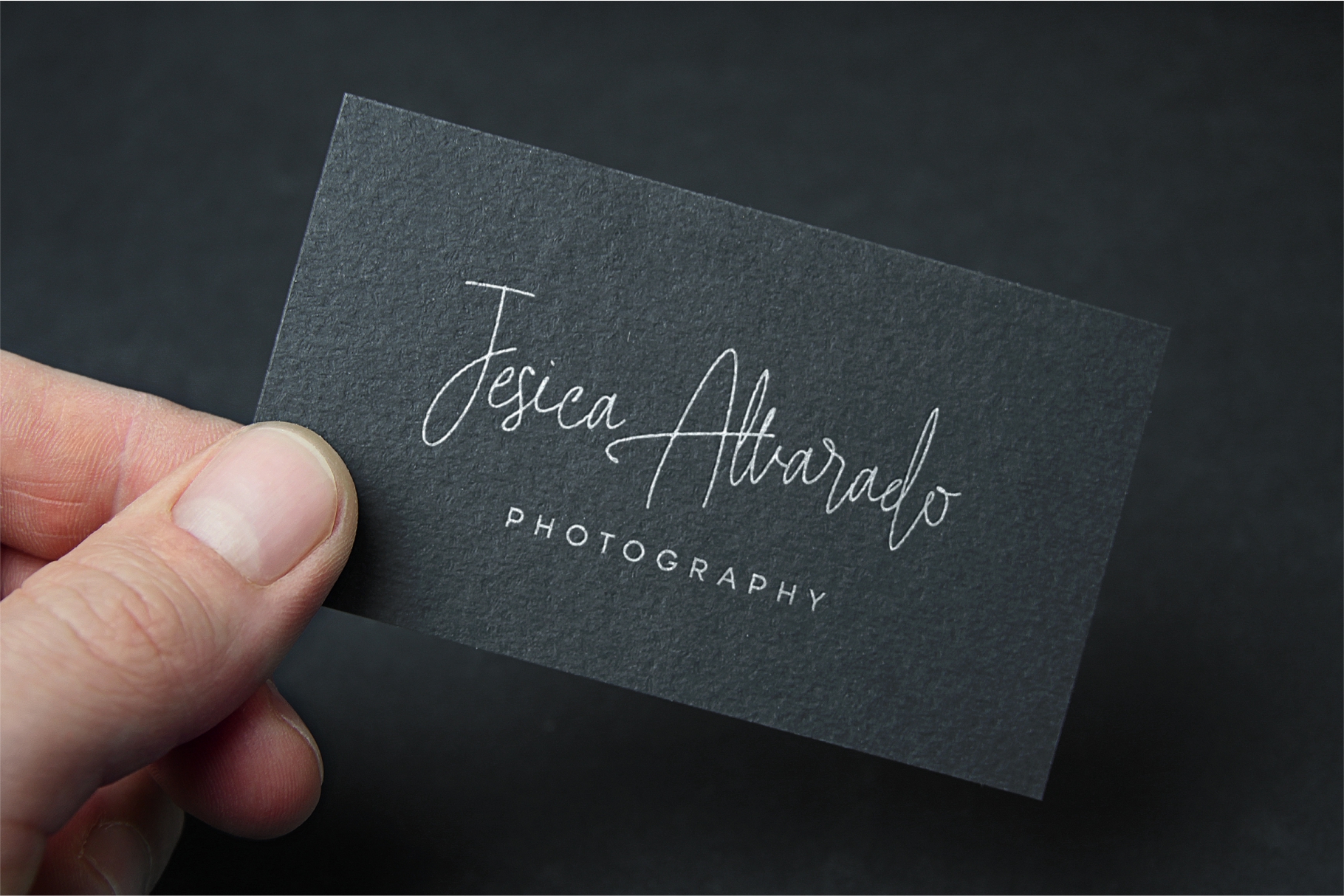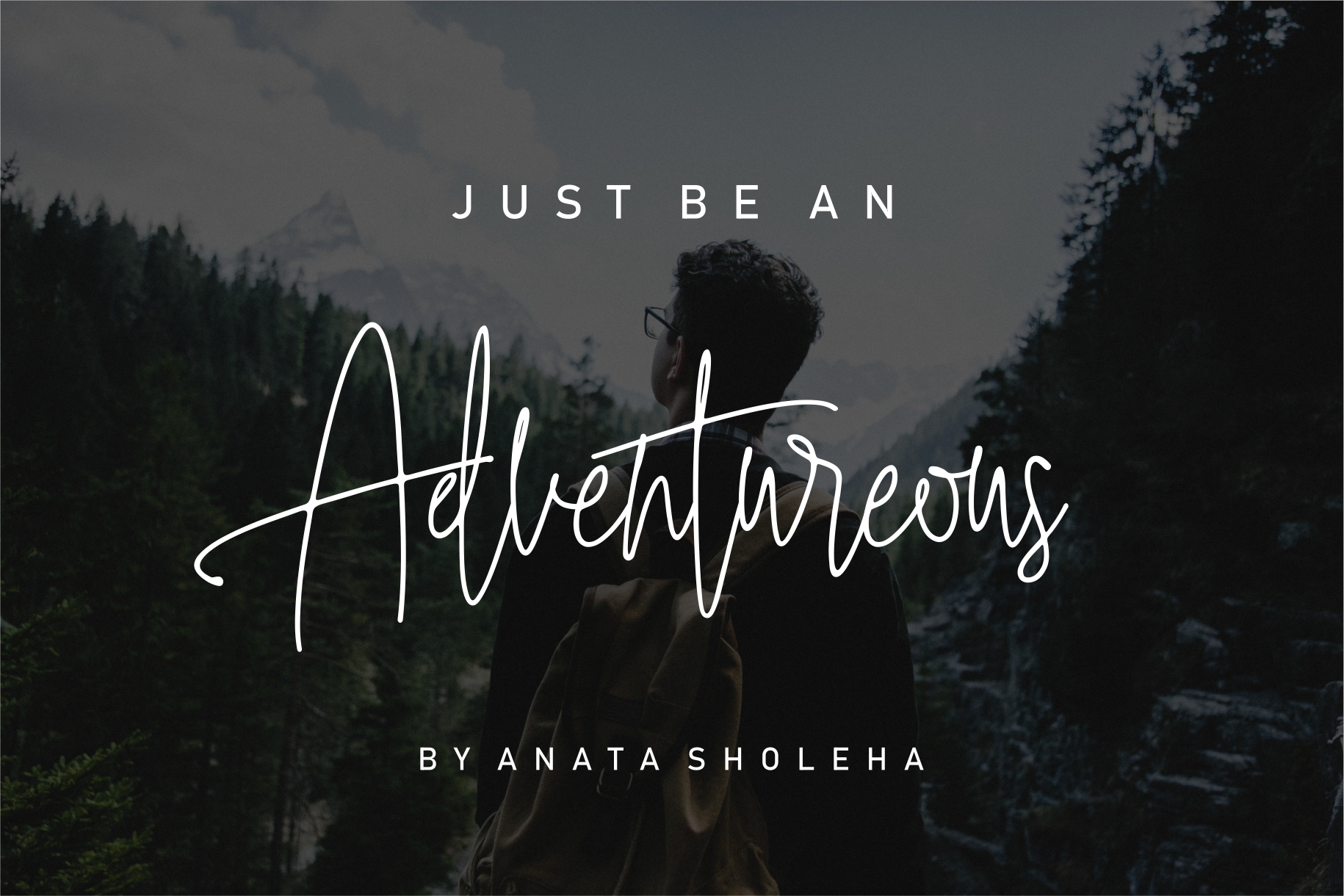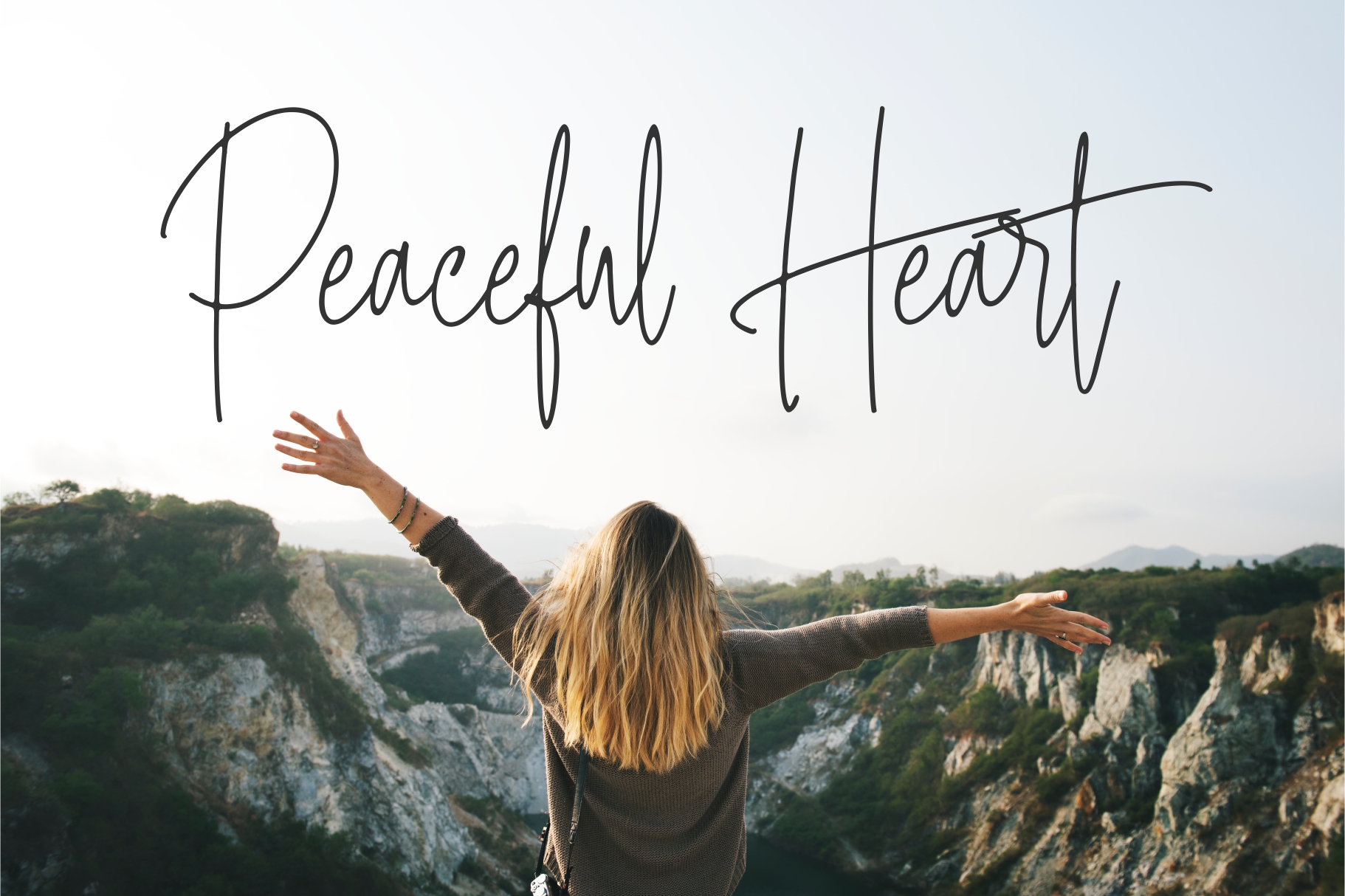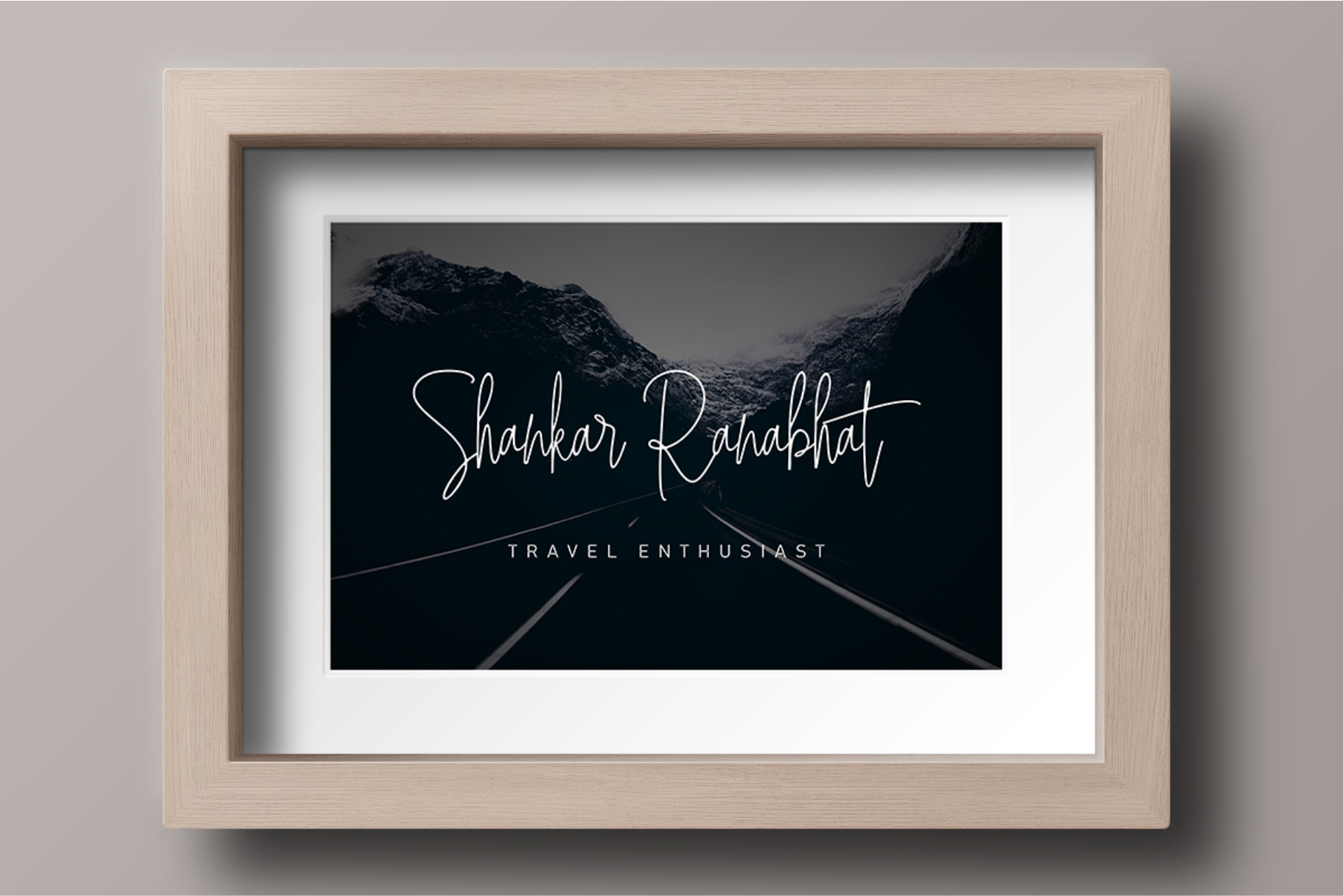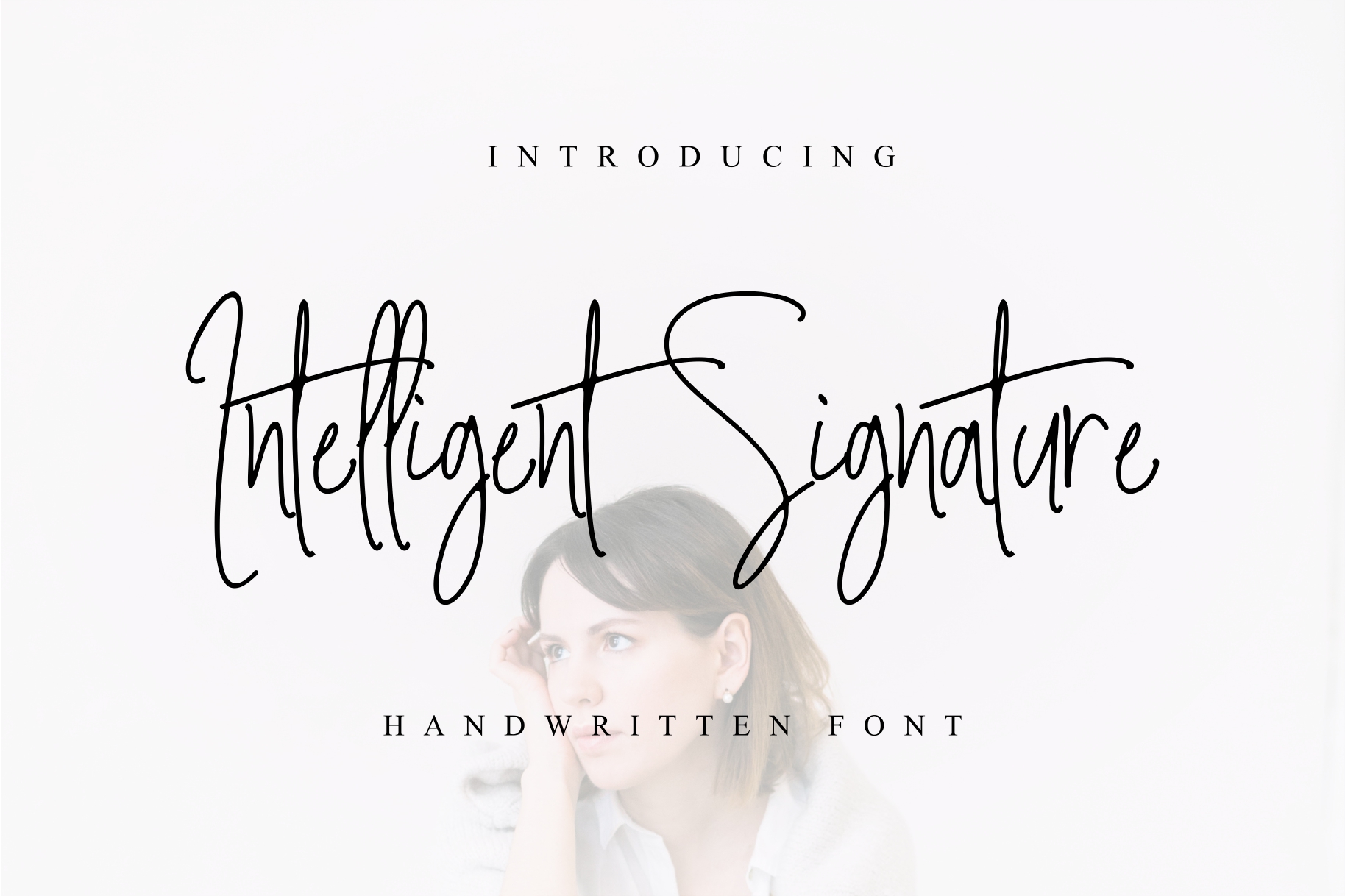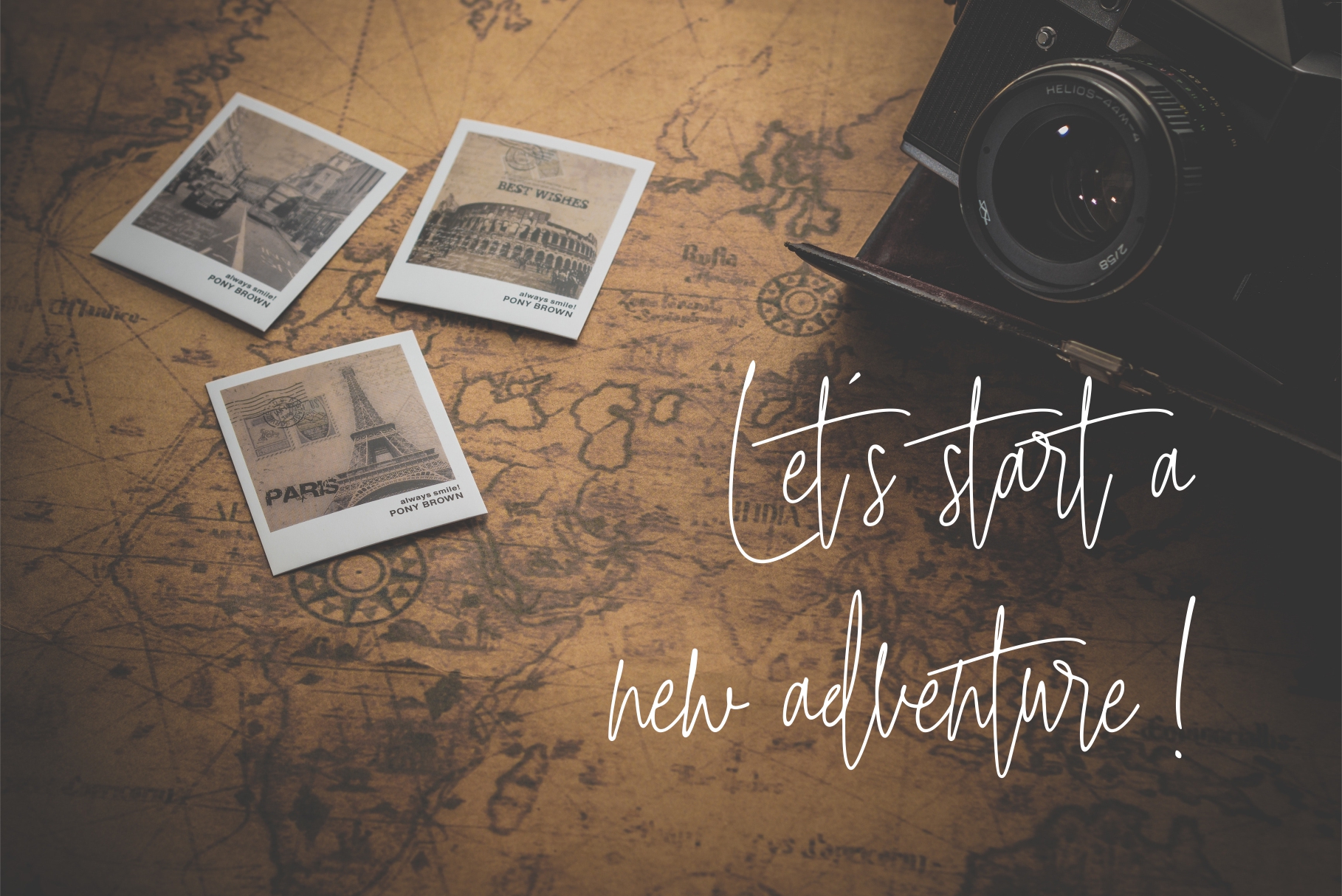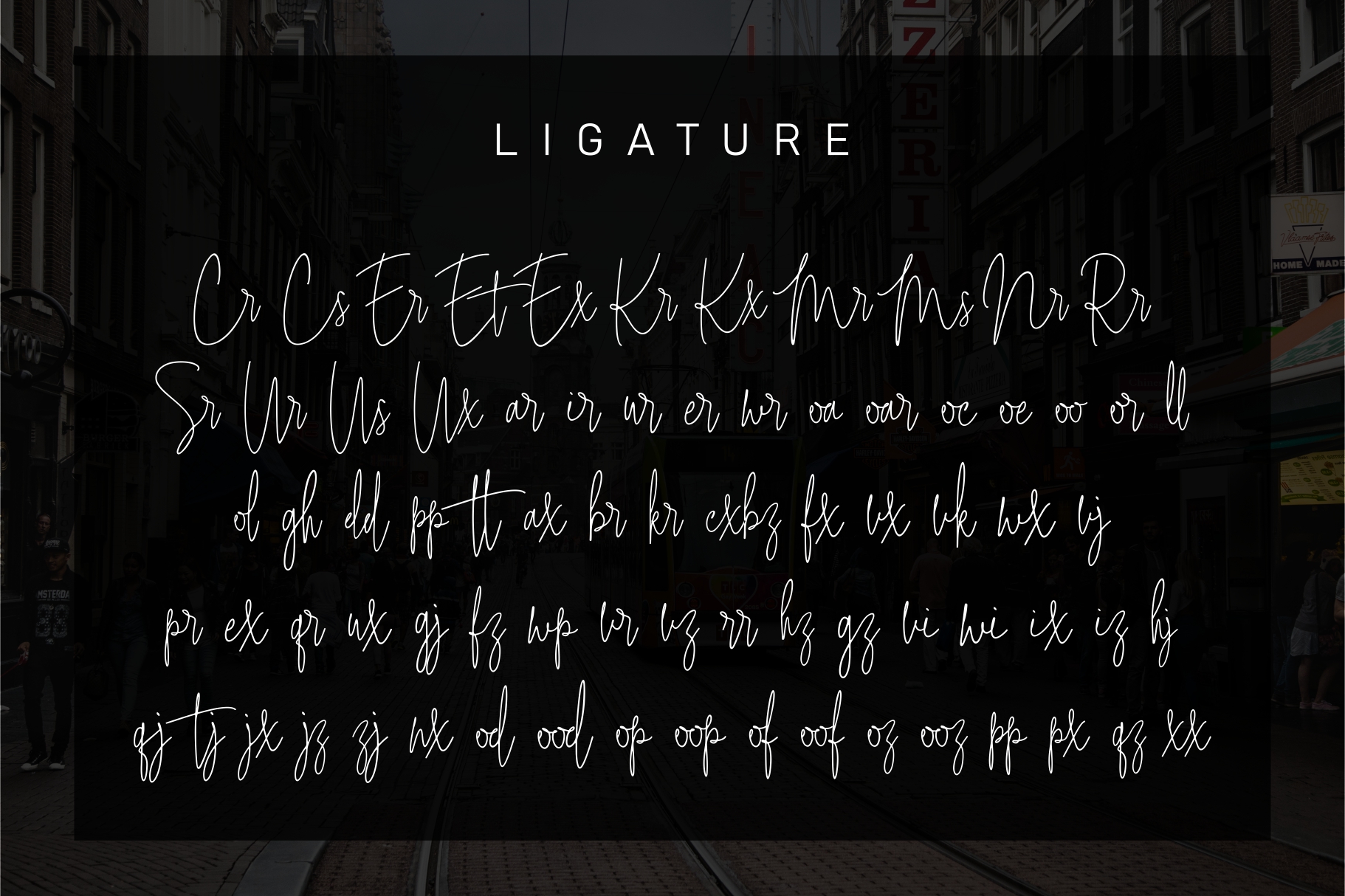
Intelligent Signature Font
About Intelligent Signature Font
Intelligent Signature was crafted to look as close to handwriting as possible, with more than 100 ligatures. This font is beautiful and unique, and looks at home in luxurious and contemporary designs.